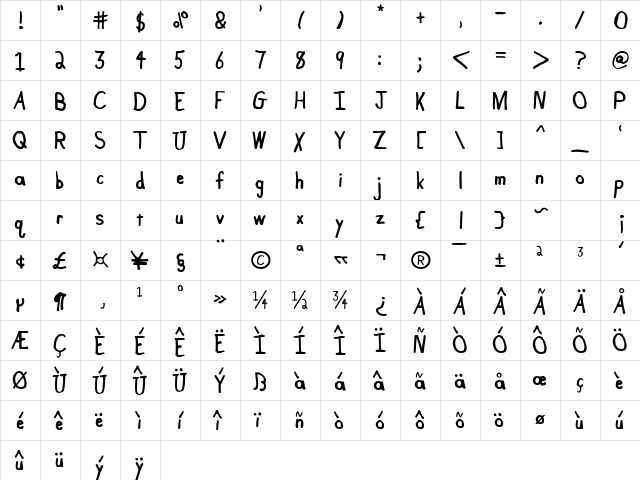
Adrianne Normal
Design Context for Adrianne Typeface
Adrianne takes a measured approach to typography — its balanced proportions and neutral character make it a reliable workhorse for both digital and print work.